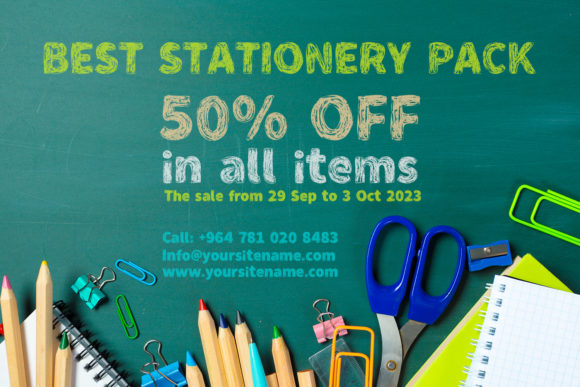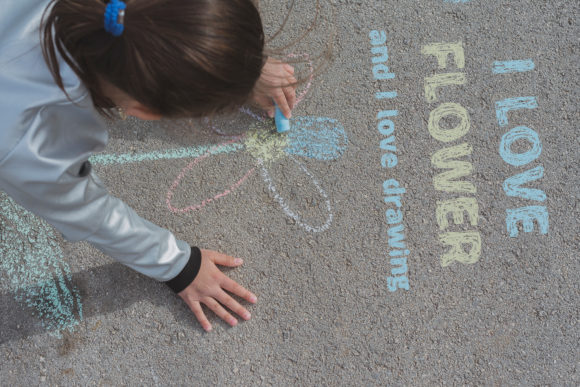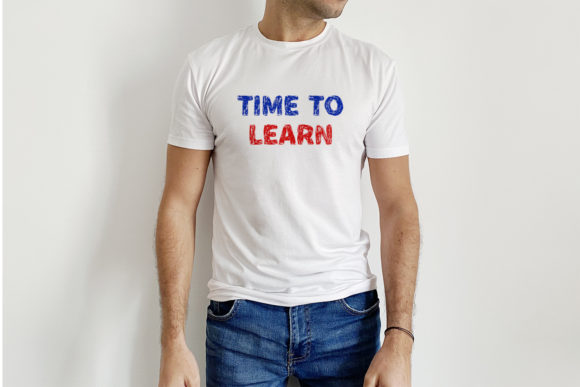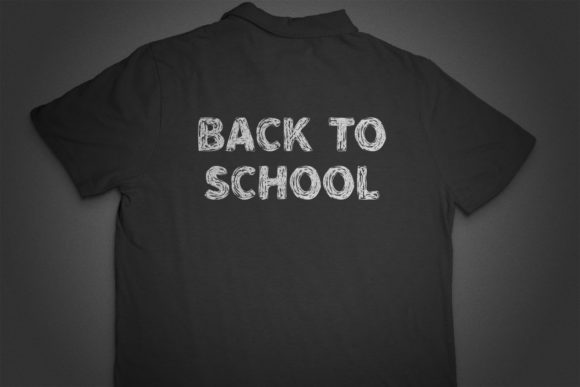
Unleash Your Creativity with the Timeless Charm of Chalk Font
Do you remember the feeling of standing in front of a blank chalkboard, waiting for inspiration to strike? The soft scratch of chalk against the board, the smell of the dusty eraser, and the joy of bringing a creative idea to life – it’s a moment that sparks something deep within us. As designers, we’re always on the lookout for ways to tap into that same sense of wonder and nostalgia.
Enter Chalk Font, a beautiful sketch display font that’s perfect for adding a touch of whimsy to your designs. With its hand-drawn charm, Chalk Font is ideal for school-themed projects, party invitations, and any other design that needs a playful, vintage feel. For designers, Chalk Font offers a valuable asset – a font that’s both versatile and uniquely expressive, allowing you to add a personal touch to your work.
Key Features of Chalk Font
- Unique Characteristics: Chalk Font features a distressed, hand-drawn aesthetic, giving it a unique and vintage feel that sets it apart from other fonts.
- Style Variations: Chalk Font comes in 3 different styles: Regular, Bold, and Italic, allowing designers to create a range of visual effects and moods.
Designer Review: Chalk Font
Overall, I think Chalk Font is a solid choice for designers looking for a distressed, handwritten font. Here are some things that work well:
- ✨ Unique texture and feel: Chalk Font’s distressed texture gives it a unique and eye-catching feel that’s perfect for creative projects.
- ✨ High versatility: Chalk Font can be used for a wide range of projects, from invitations to signage, and even web design.
- ✨ Good legibility: Despite its distressed texture, Chalk Font remains legible and easy to read, even at smaller font sizes.
- ⚠️ Limited customization options: While Chalk Font offers some basic font styles and sizes, there’s limited ability to customize the font further.
- ⚠️ May not be suitable for formal projects: Due to its distressed texture, Chalk Font may not be the best choice for formal projects or those that require a more professional look.
Overall, I think Chalk Font is a great choice for designers who want a unique and eye-catching font for their creative projects. While it may not be suitable for all types of projects, it’s a solid addition to any designer’s toolkit.
Tips for Getting the Most Out of Chalk Font
Here are a few tips for getting the most out of the Chalk Font:
– Use it for creative projects such as invitations, posters, and flyers.
– Combine it with other fonts to create a unique and eye-catching design.
– Experiment with different font sizes and colors to add visual interest.
The Chalk Font is commonly used for:
– Creative projects such as invitations and posters.
– Educational materials such as worksheets and handouts.
– Marketing materials such as flyers and brochures.
Alternatives to Chalk Font
Playfair Display is a luxurious and elegant serif font, perfect for creating a sense of sophistication and refinement. It’s ideal for use in high-end branding, luxury goods, and fine art.
Compared to Chalk Font, Playfair Display has a more refined and polished look, with intricate details and flourishes. While Chalk Font has a more casual, handwritten feel, Playfair Display is better suited for formal and high-end applications.